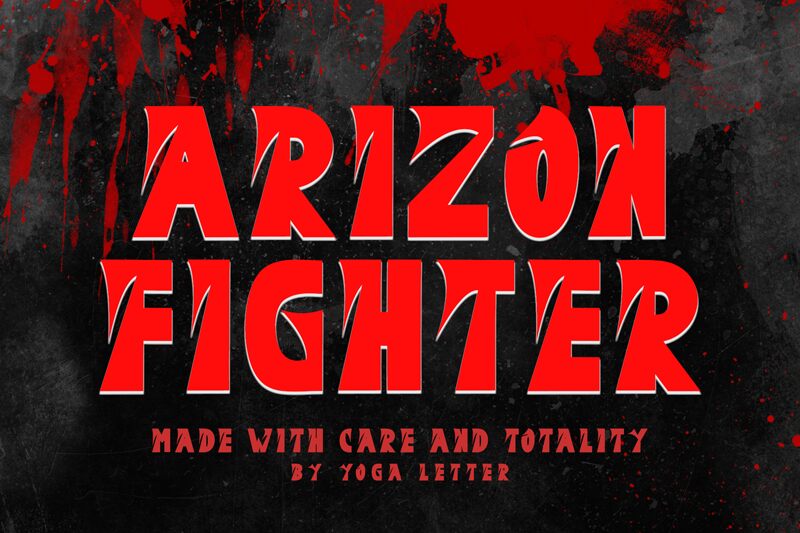
Arizon Fighter font by Yoga Letter is a free rugged Gothic-style font with a strong visual impact. The typeface provides a commanding presence by combining a contemporary style with a balanced dynamic, vibrant, intense, and energetic whole.
The font contains 1 style and is appropriate for all design tasks where a bold typographic statement is needed. Its intensely expressive characteristic gives it a strong visual impact that is especially suitable for headline or title usage.
The font’s strong visual impact makes it ideal for movie posters, action-themed setup designs, music album covers, thriller book titles, packaging, band or artist logos, or gaming layouts. Use it in apparel design like T-shirts, blouses, hats, or elsewhere where strong typographic expression is important.